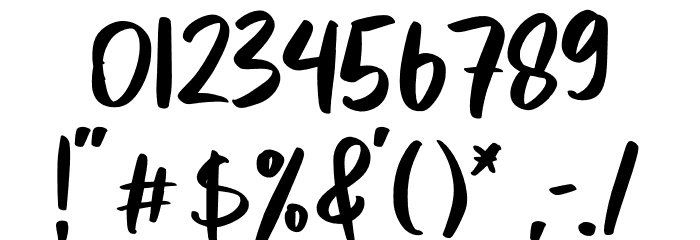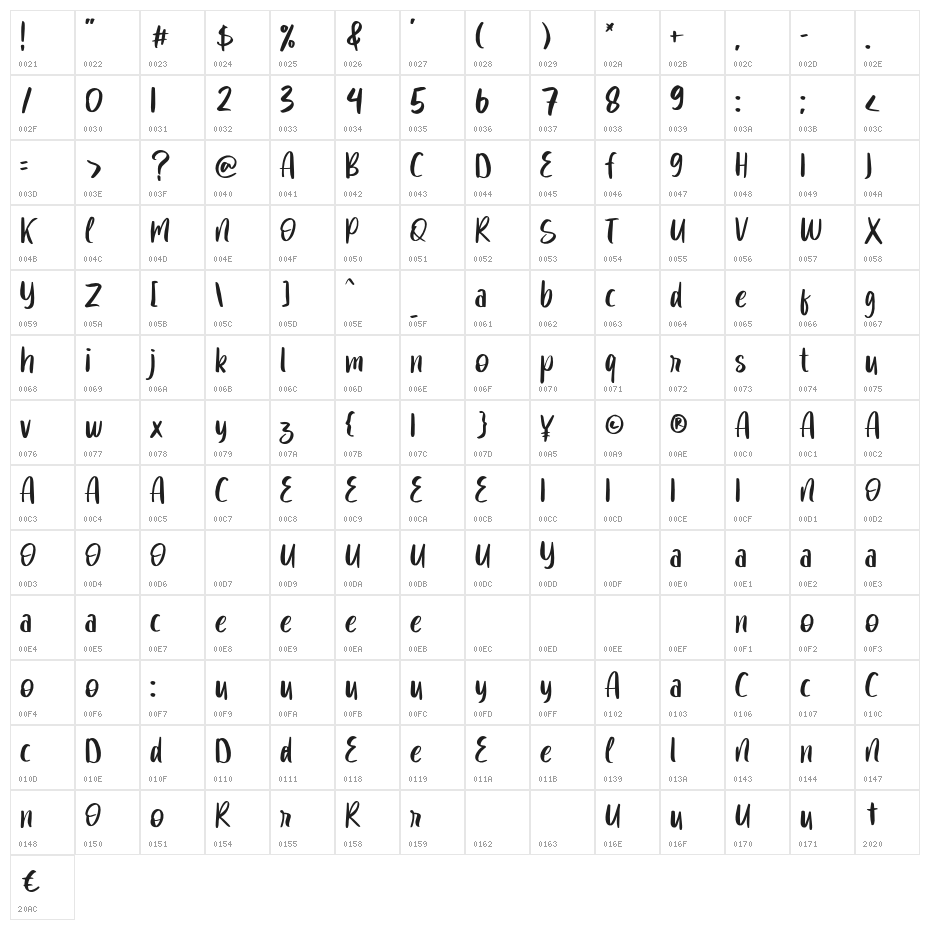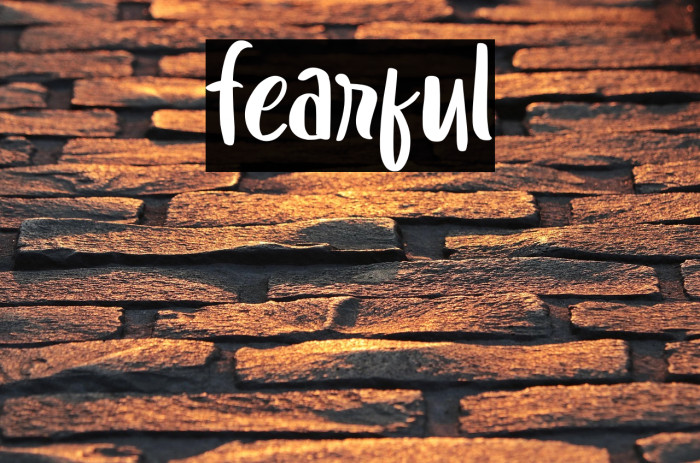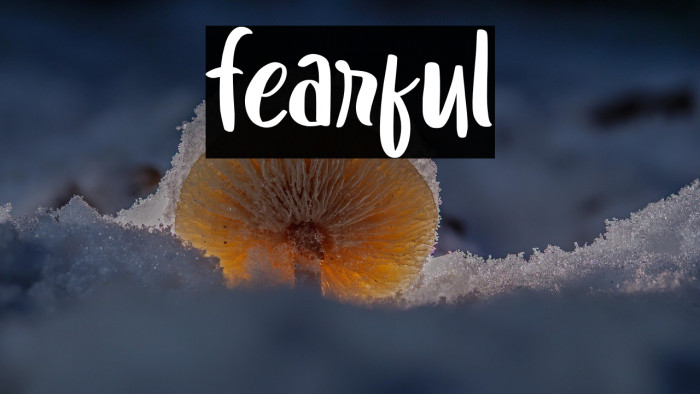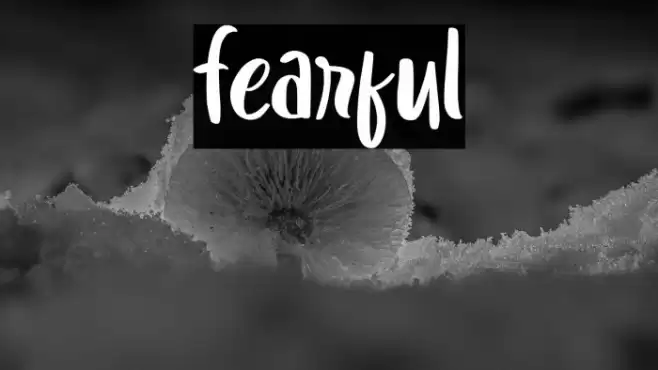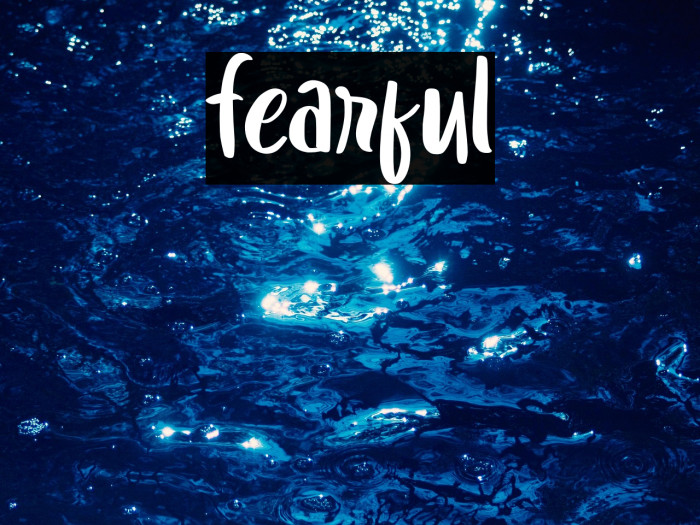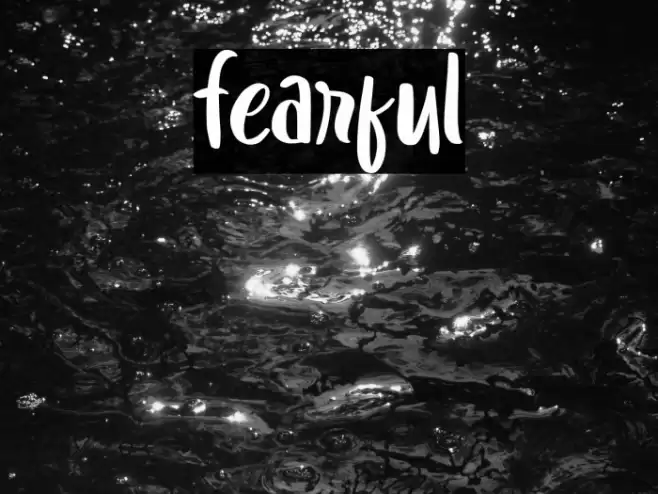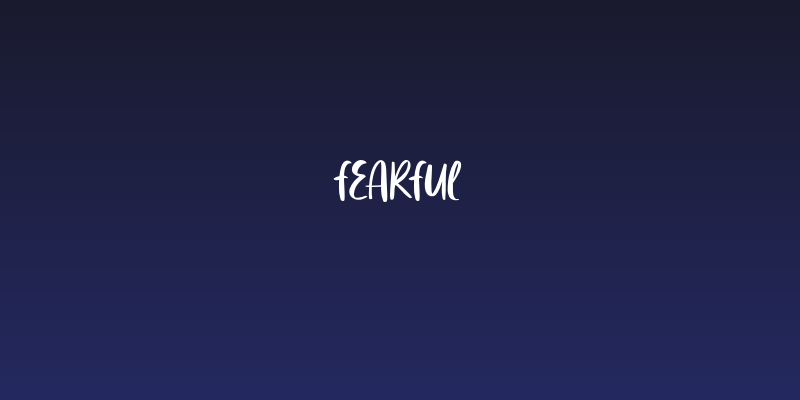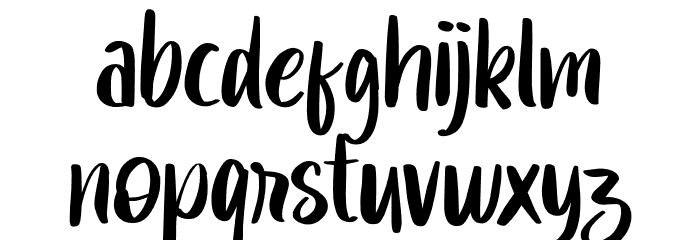
Fearful Font
Fearful Description
This font features a bold and expressive handwritten style, characterized by its fluid and dynamic strokes. The uppercase letters are tall and slightly condensed, while the lowercase letters maintain a consistent height with a playful flair. The numbers are bold and easily readable, complementing the overall style. The special characters are designed to match the energetic and lively feel of the font, making it suitable for creative and informal projects. The font's unique personality is conveyed through its varying stroke widths and slight slant, giving it a sense of movement and spontaneity.